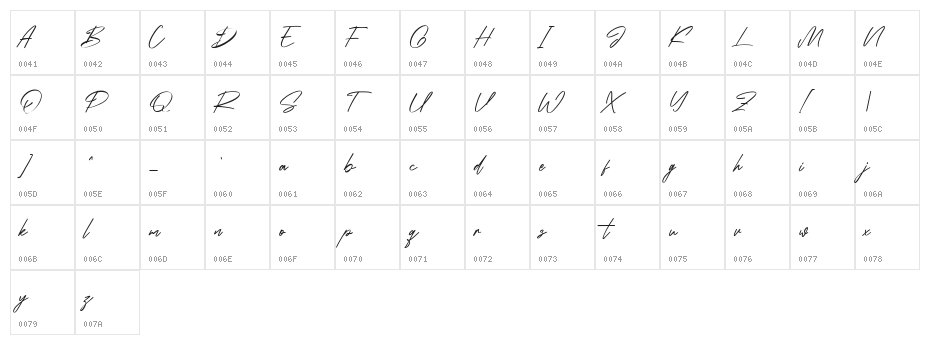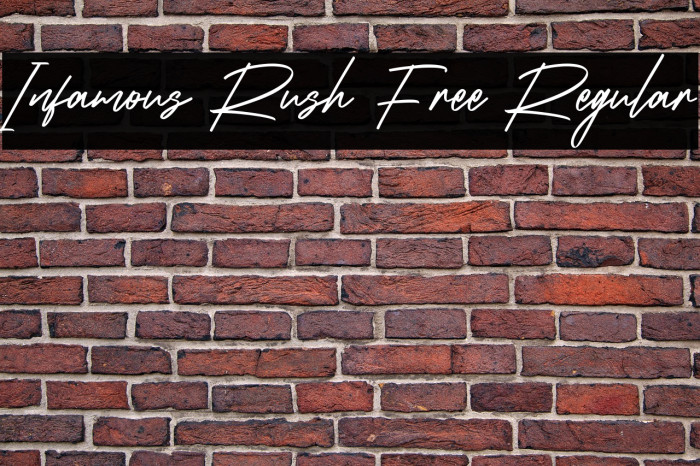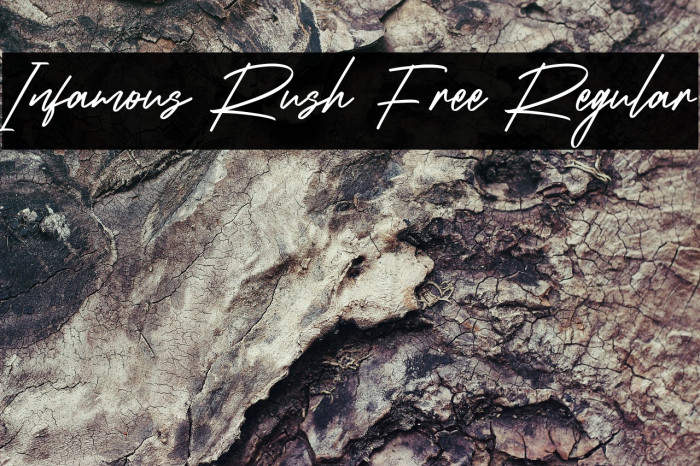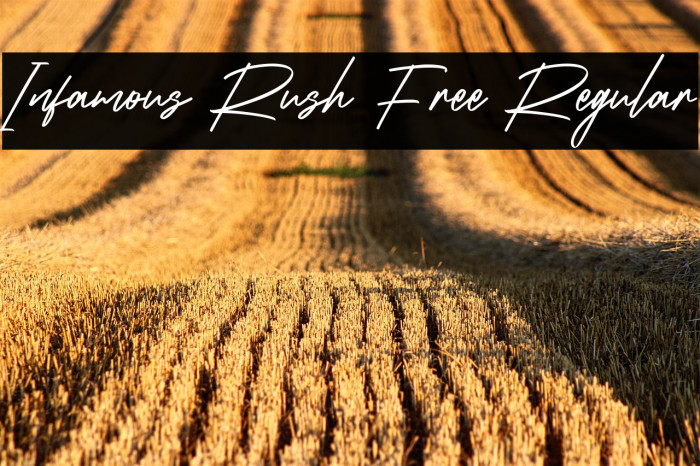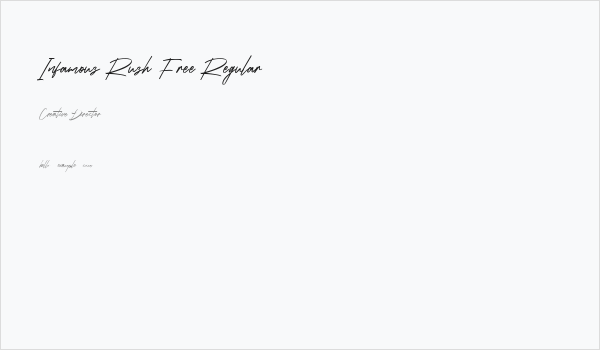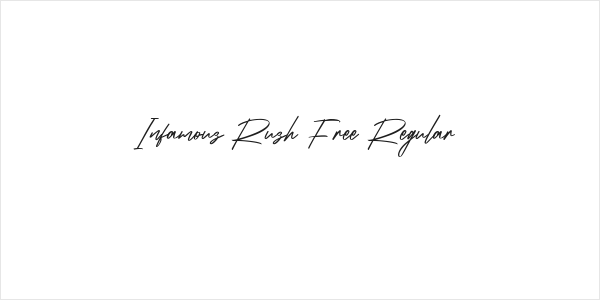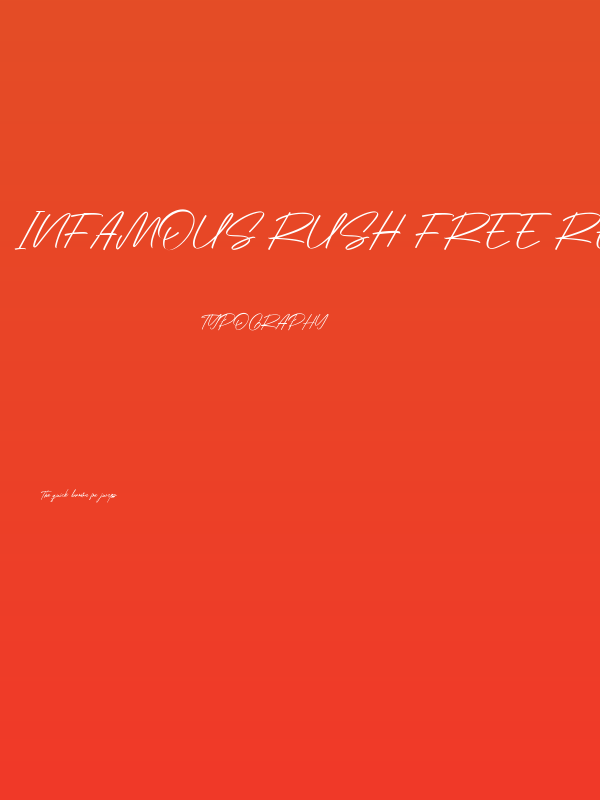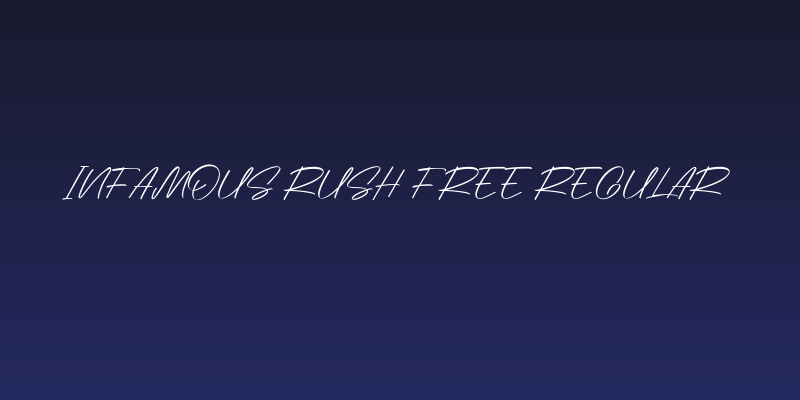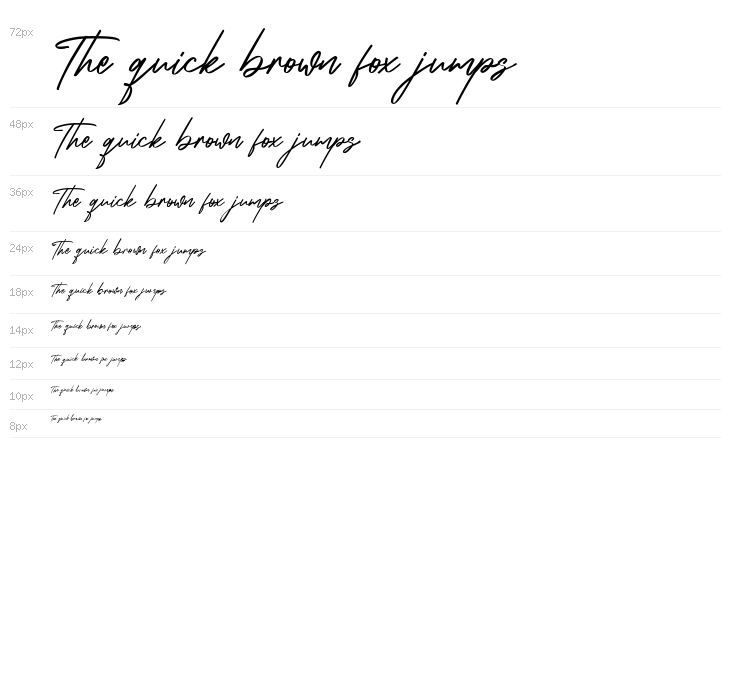
Infamous Rush Free Regular Font
Infamous Rush Free Regular Description
This elegant script font features a flowing, cursive style with a modern touch. The characters are connected, creating a seamless and fluid appearance. The strokes are thin and delicate, adding a sense of sophistication and grace. The uppercase letters are slightly larger and more pronounced, while the lowercase letters maintain a consistent flow. The font's overall design is both stylish and versatile, making it suitable for various creative applications.
| Proposed Projects | Ideal for wedding invitations, branding, social media graphics, and elegant stationery. |